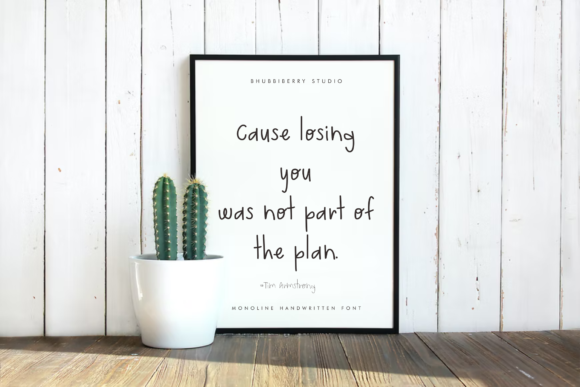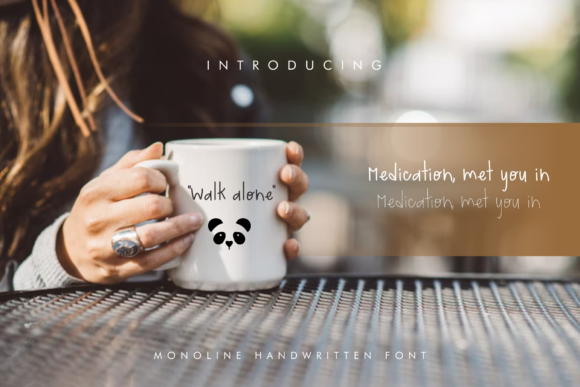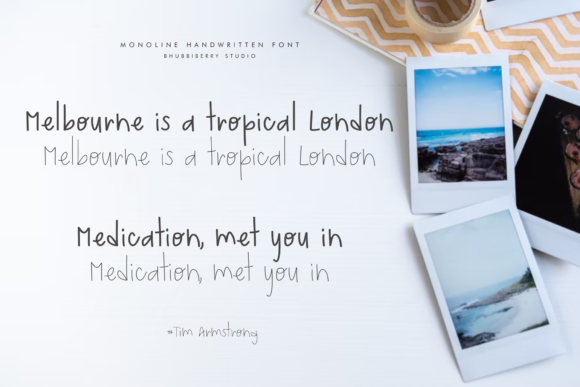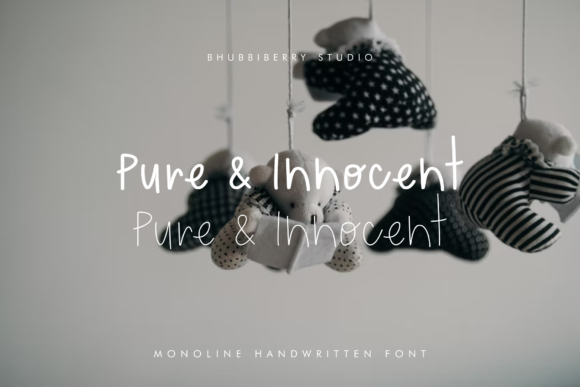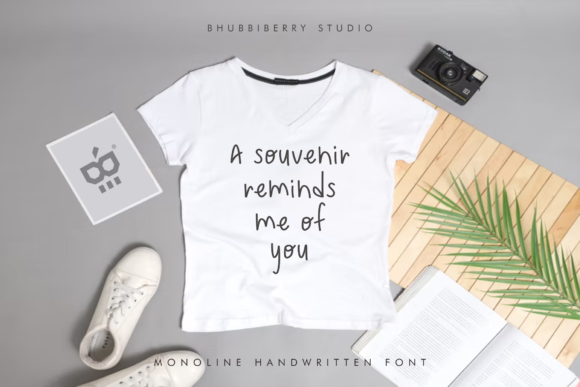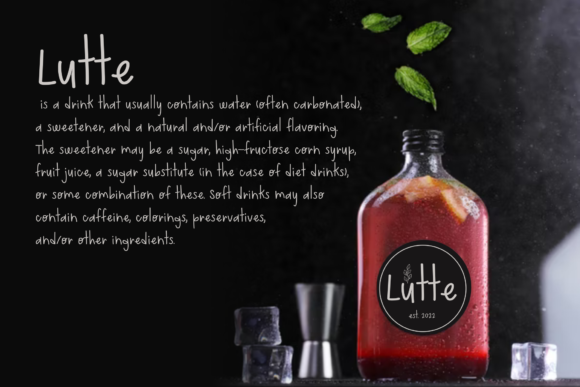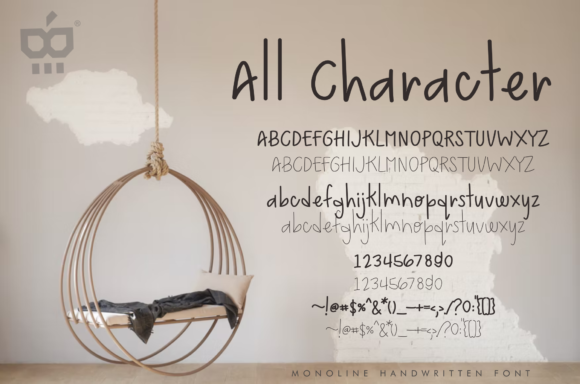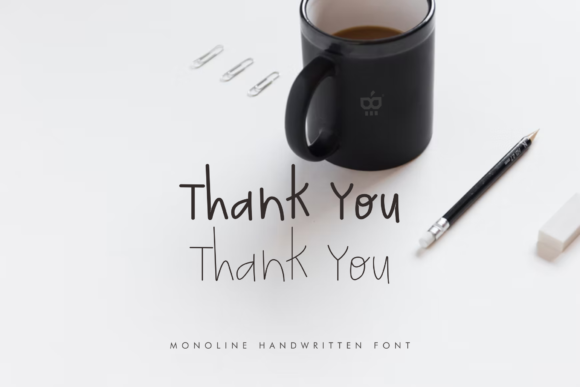
Lutte Font
About Lutte Font
Introducing “Lutte,” a thin lettered and simple script font designed for a variety of applications. Whether you’re working on quotes, social media designs, invitations, or simply expressing words above a background, “Lutte” is an ideal choice with its clean and straightforward letterforms.
The thin lettering of “Lutte” adds a touch of elegance and simplicity to your designs. Its minimalist approach makes it versatile, allowing it to seamlessly integrate into various contexts. Whether you need a font for inspirational quotes or to convey a message in a subtle and stylish manner, “Lutte” is crafted to fulfill these needs.
Imagine “Lutte” as the perfect typeface for creating visually pleasing social media graphics or elegant invitations. Its simplicity ensures clarity and readability, making it suitable for a wide range of design projects where a clean and straightforward script is desired.
In summary, “Lutte” is more than just a font; it’s a thin lettered and simple script designed to bring elegance and versatility to your designs. Whether you’re crafting quotes, social media content, invitations, or any other creative project, let “Lutte” be the understated yet impactful element that enhances the visual appeal of your creations.